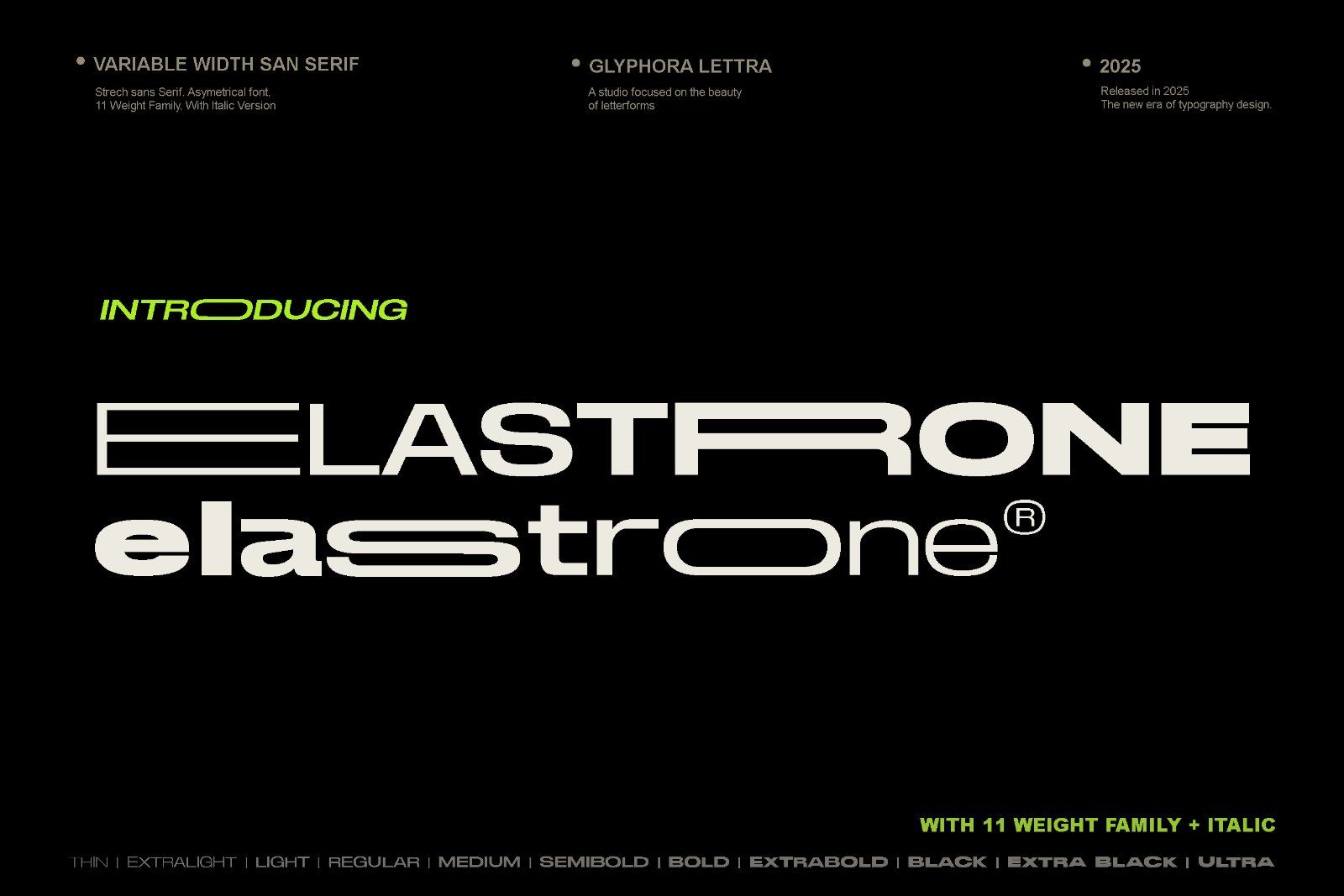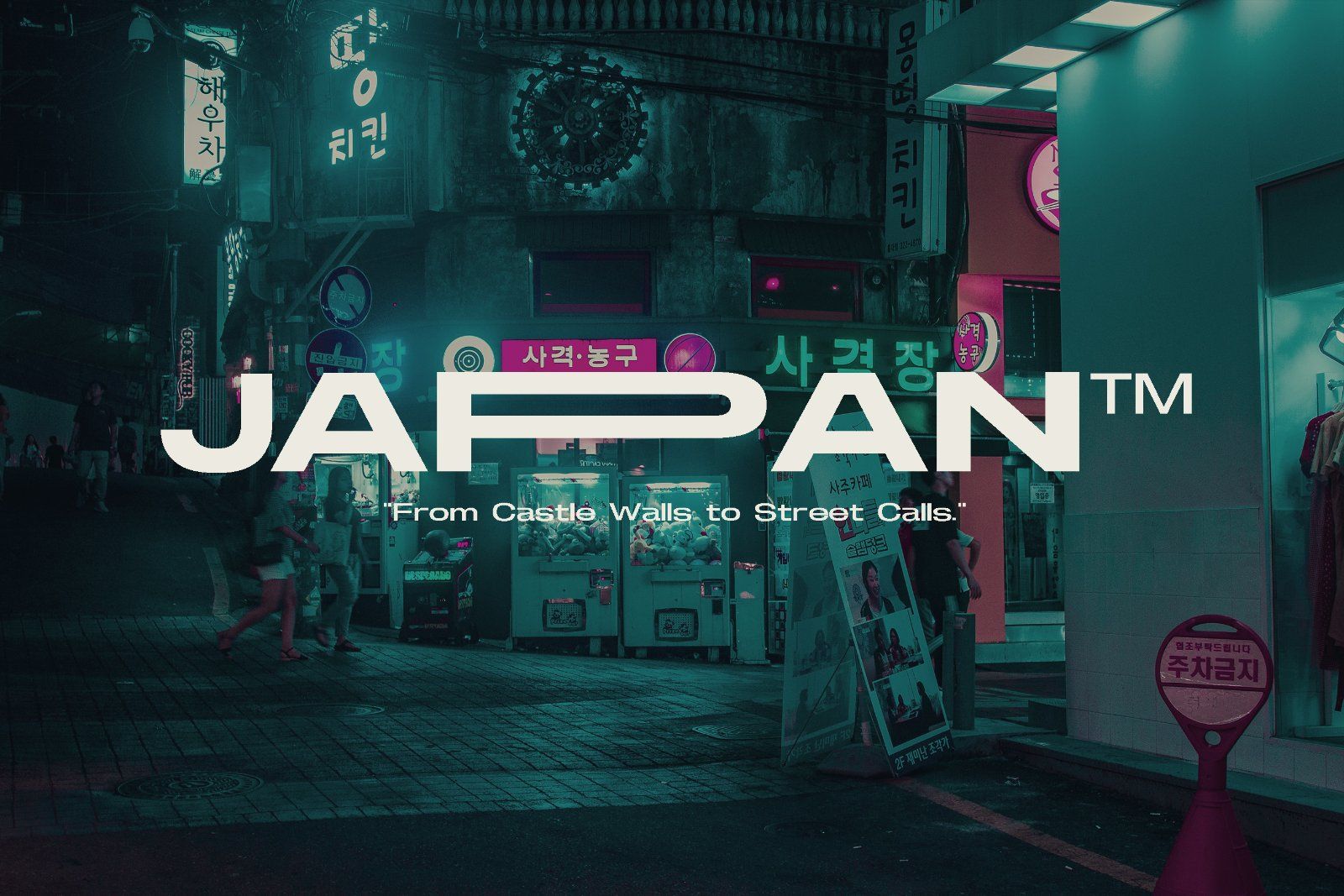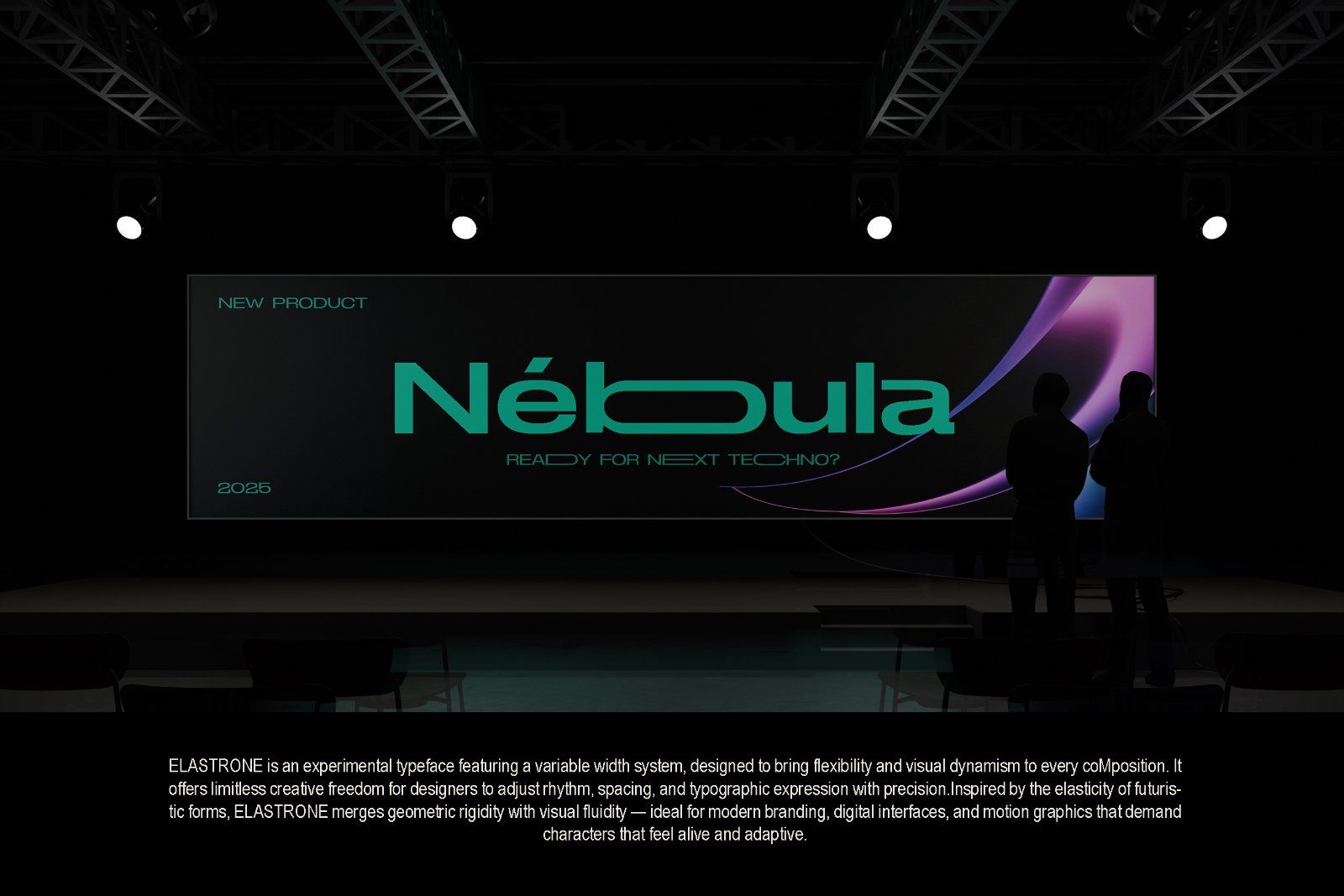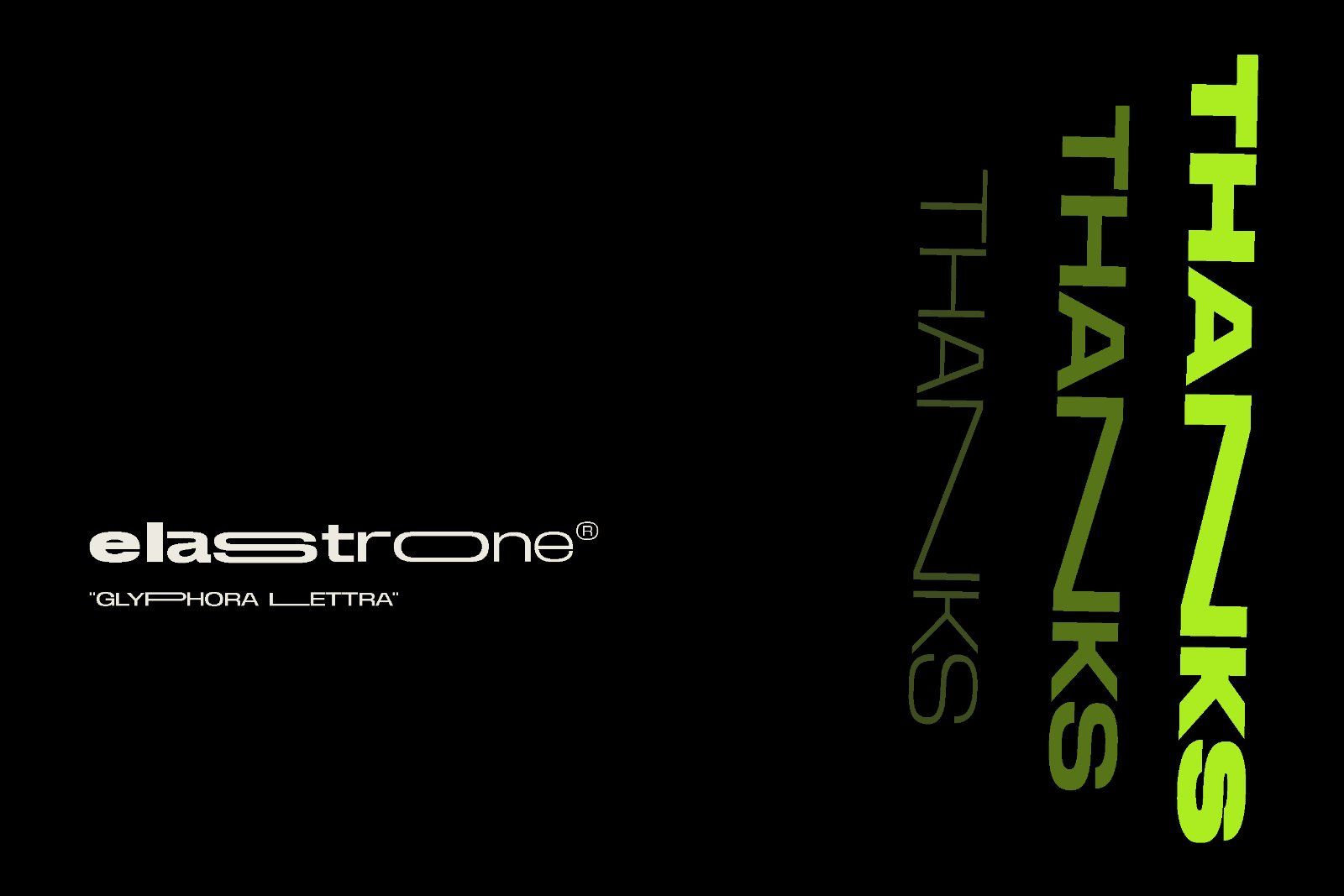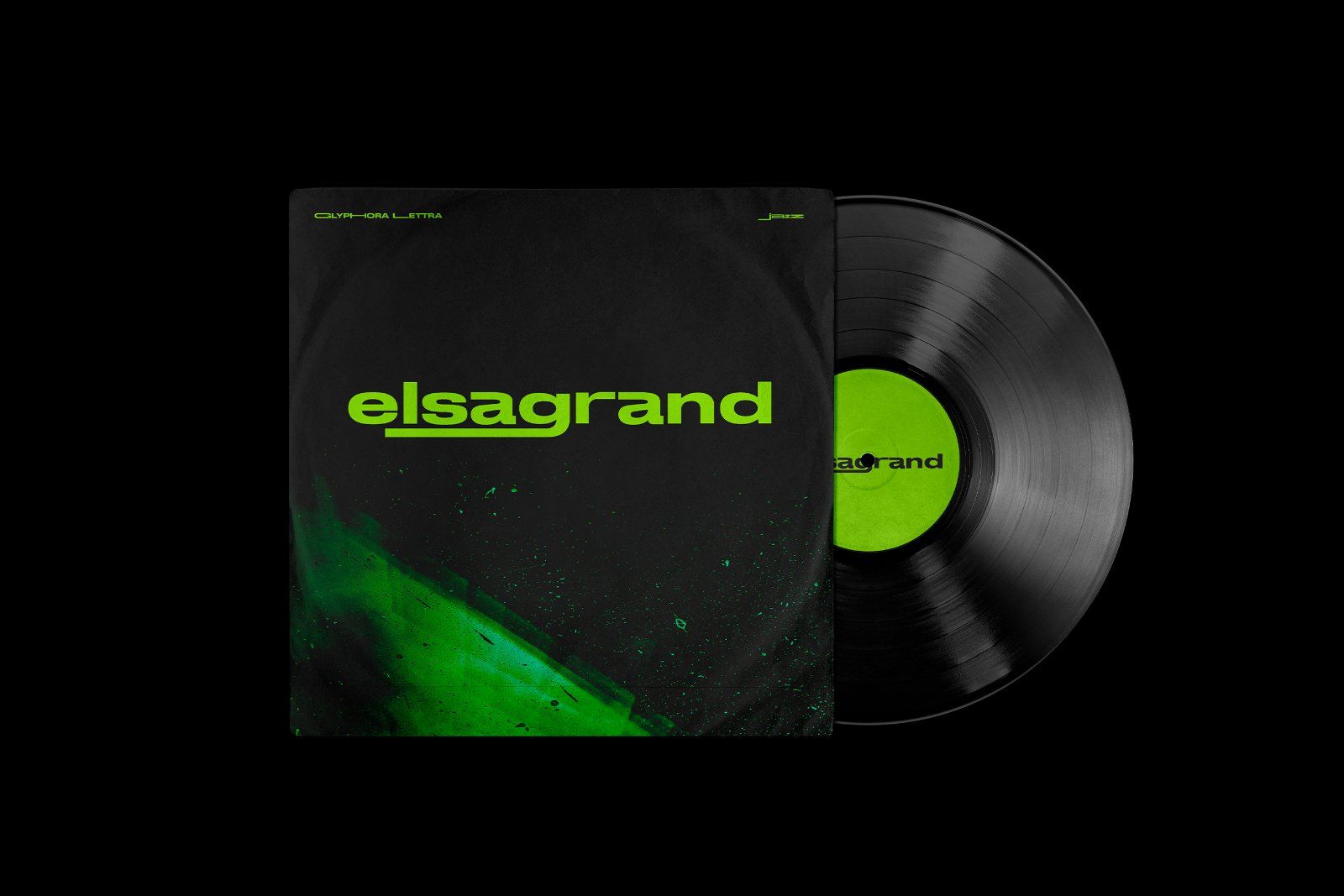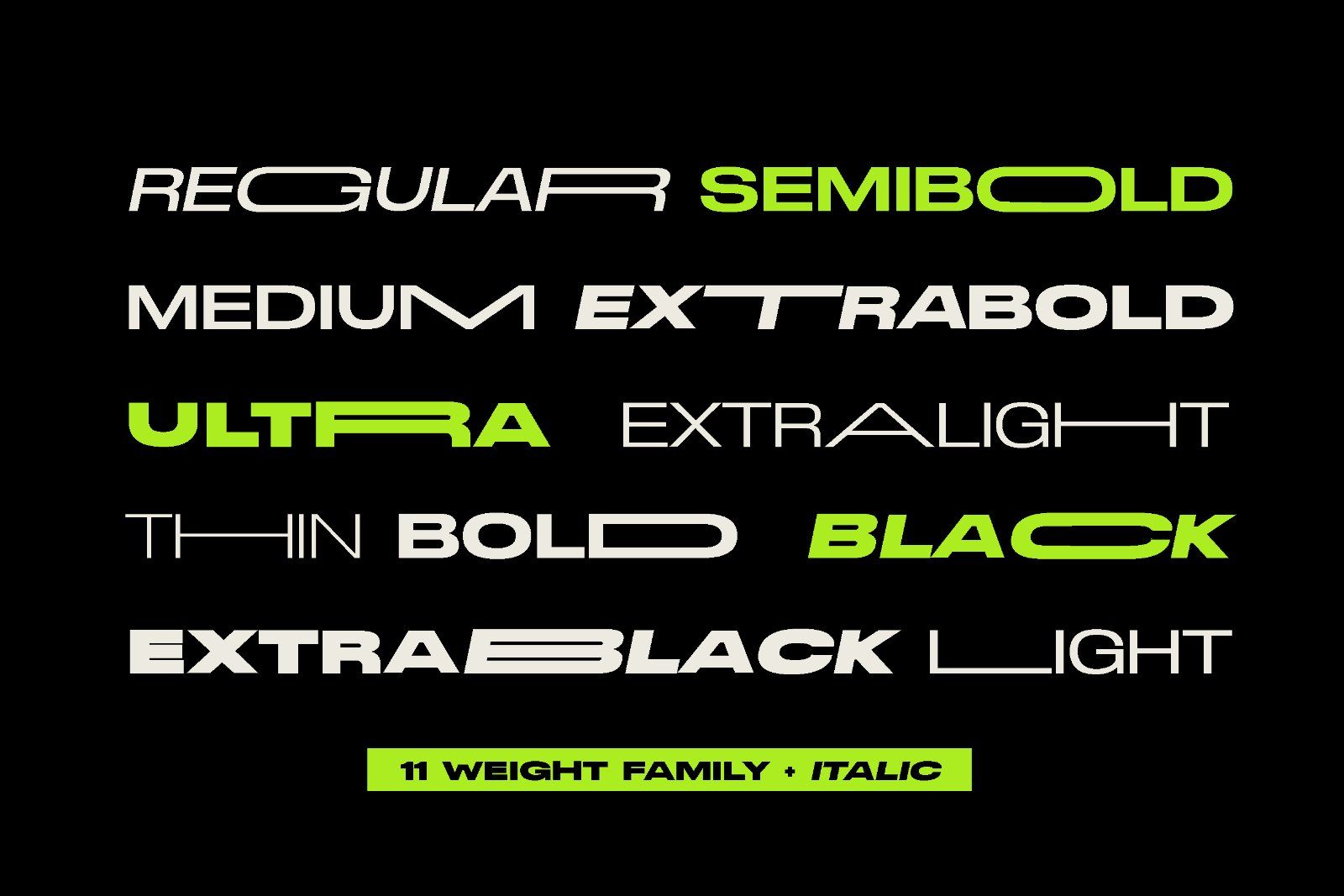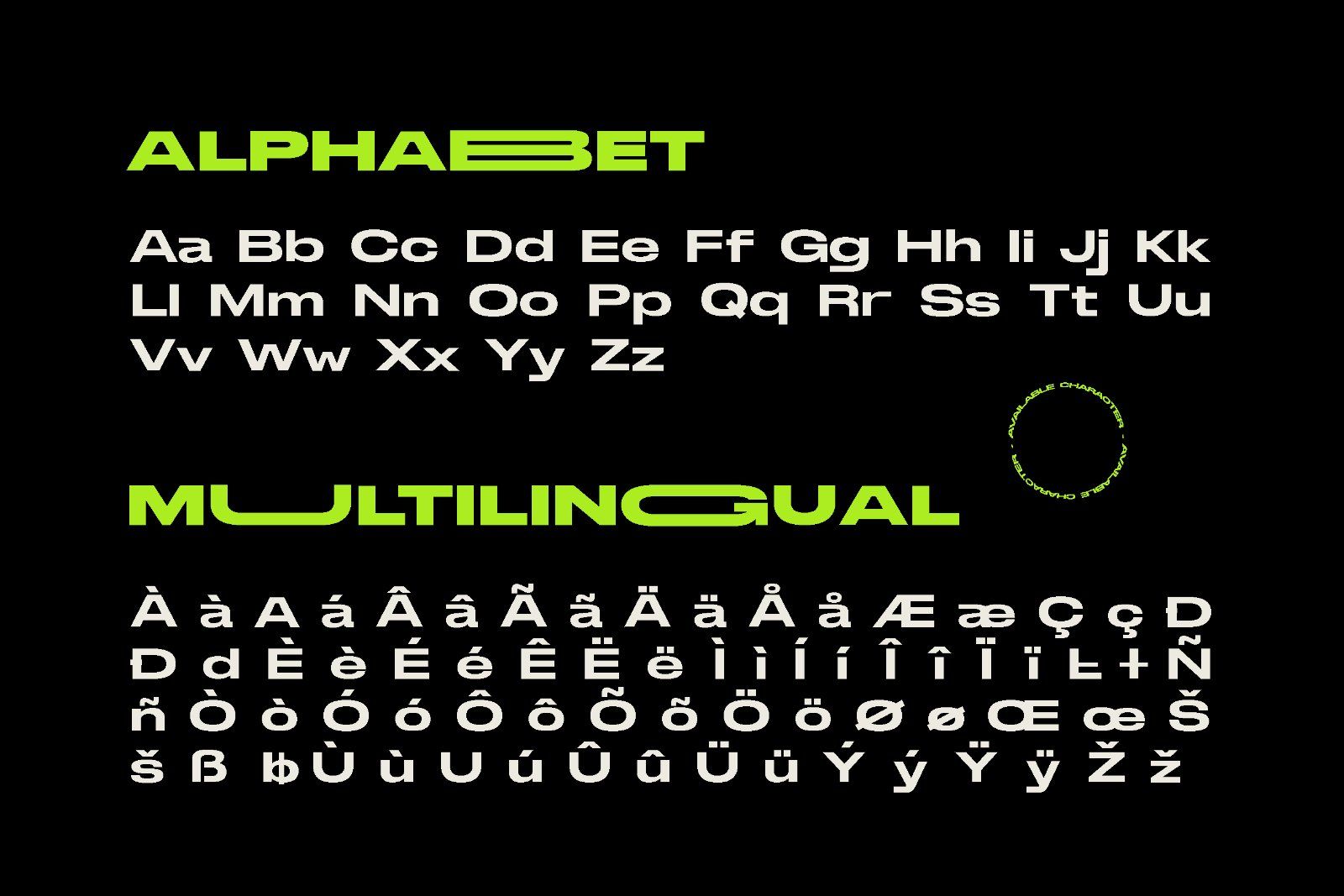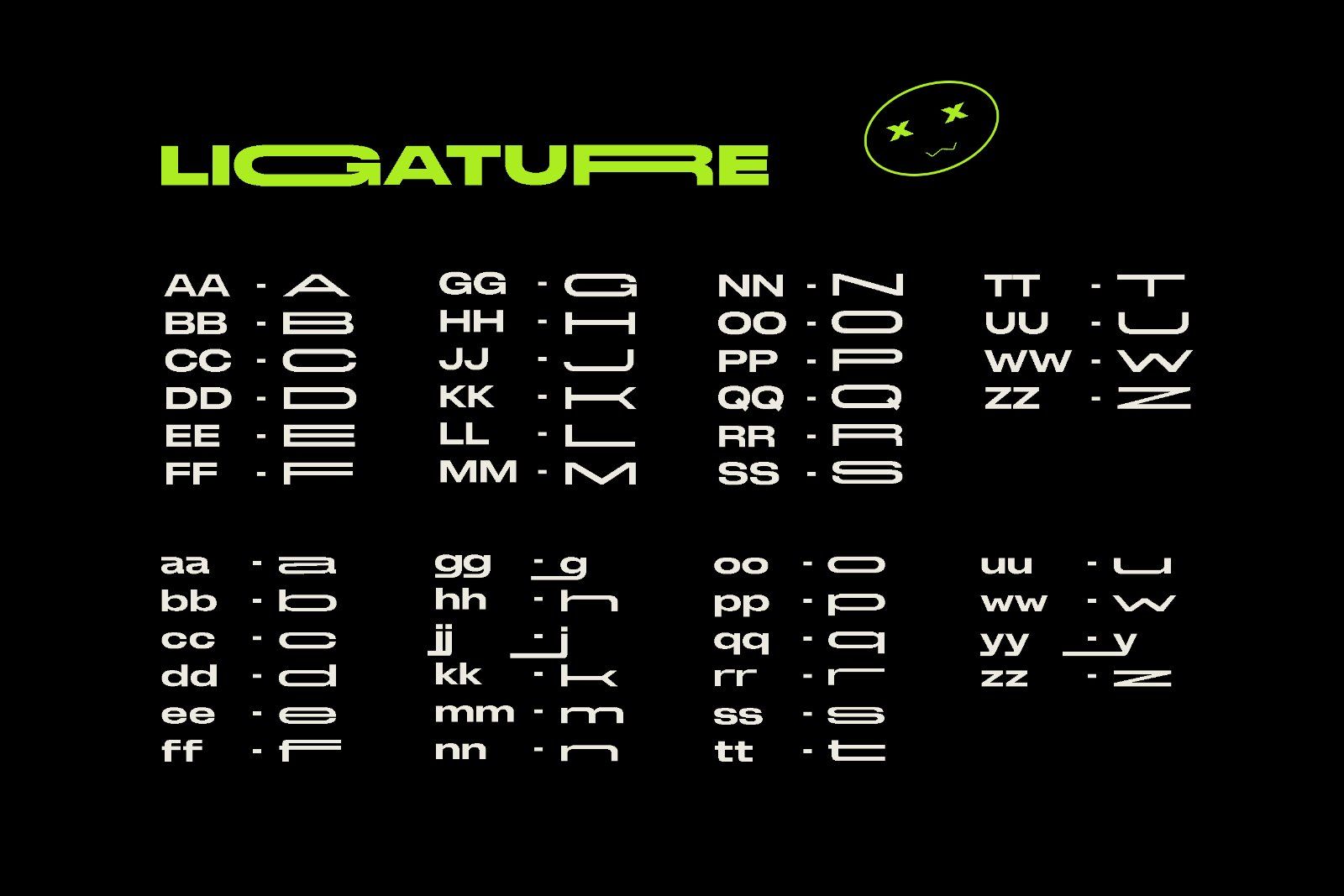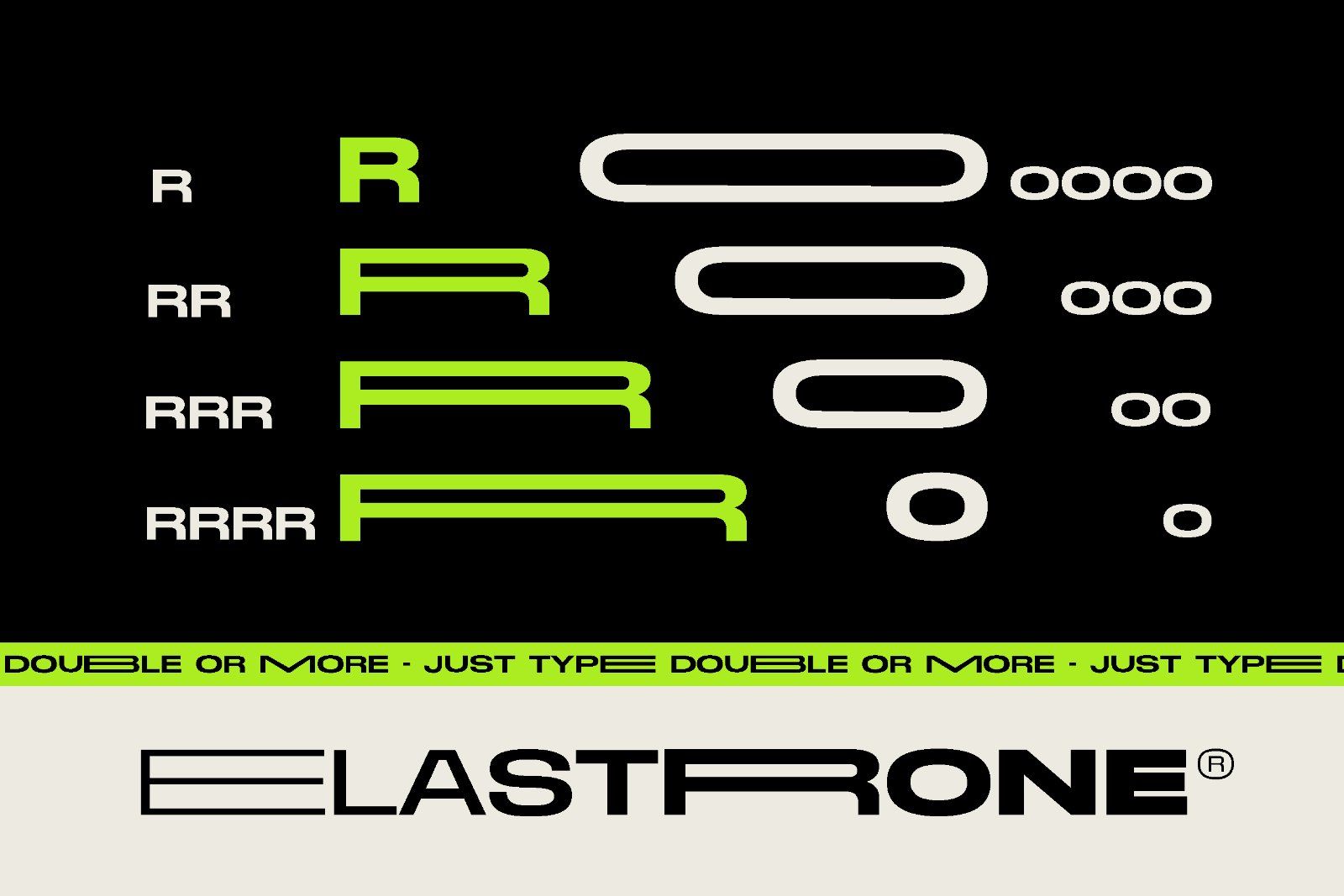
Elastrone - Variable Width Font Family
ELASTRONE is an experimental typeface featuring a variable width system, designed to bring flexibility and visual dynamism to every composition. It offers limitless creative freedom for designers to adjust rhythm, spacing, and typographic expression with precision. Inspired by the elasticity of futuristic forms, ELASTRONE merges geometric rigidity with visual fluidity.
• Variable Width Ligature
• Uppercase & lowercase letters